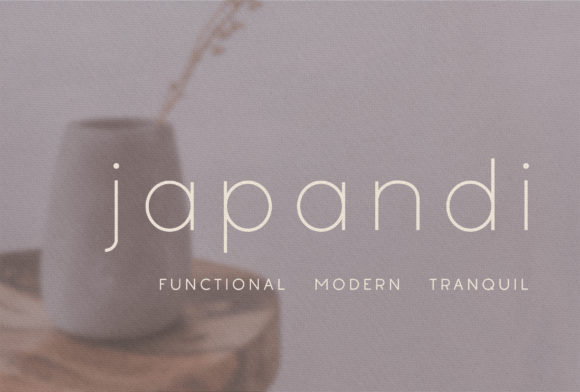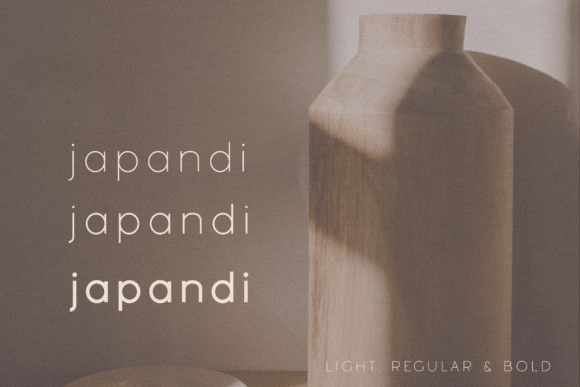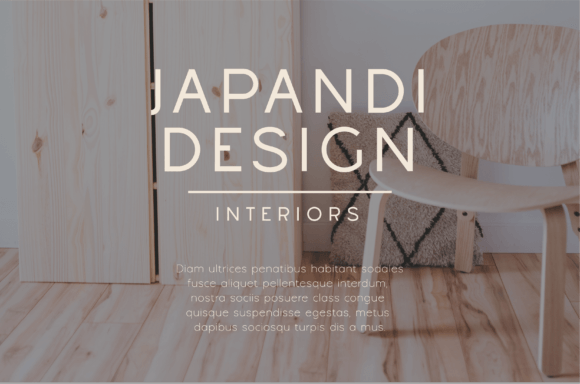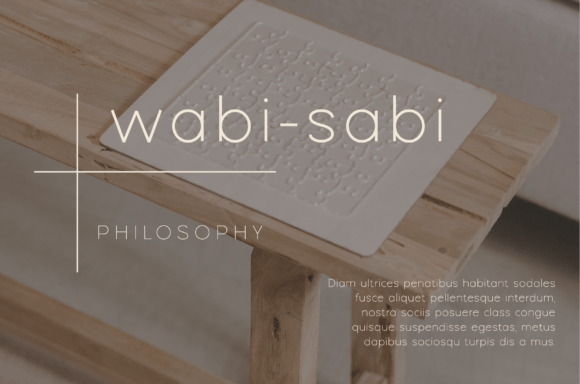
Japandi Font: Minimalist Sans Serif for Modern & Aesthetic Branding
About the Japandi Font
Introducing the Japandi Font, a beautifully crafted typeface designed to elevate your creative projects. Japandi is a minimalistic light weight sans serif font with a clean and crisp design. Japandi was designed for interior design related projects. It’s also great for branding, social media, invitations, and more.
Its clean lines and subtle geometry make Japandi ideal for logos, short headlines, and minimalist branding projects requiring a sense of calm sophistication. It excels in applications where visual clarity is paramount, such as signage or packaging design featuring concise text. However, its light weight and minimal x-height limit its effectiveness in body copy or situations demanding high readability over extended text blocks.
For optimal impact, pair Japandi with a contrasting, warmer serif like Merriweather for body text or a playful script font like Great Vibes for accents, creating a balanced visual hierarchy. Alternatively, a geometric sans-serif such as Futura can enhance its modern aesthetic.
Japandi’s core personality is understated elegance. It projects a feeling of quiet confidence and modern simplicity, making it a suitable choice for brands focused on premium quality, mindfulness, or sustainable living.
Japandi Font Usage Examples
Japandi Font Example